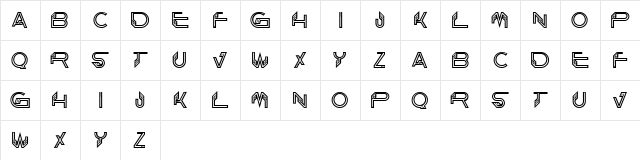
Pegaz Regular
Design Context for Pegaz
Pegaz is a composed and adaptable typeface that performs quietly and consistently across a wide range of design contexts.